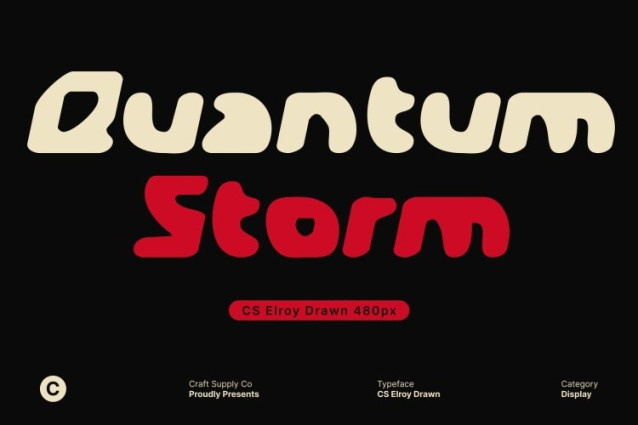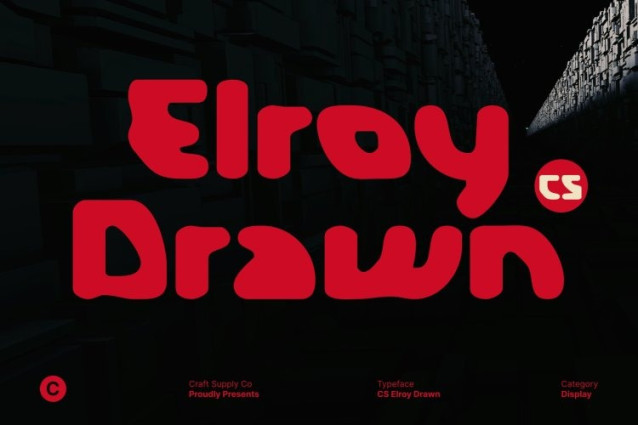
CS Elroy Drawn Font
CS Elroy Drawn Font This is a modern techno display font that fuses bold, futuristic design with expressive hand-drawn texture. Built from sharp angles and clean geometric forms, it delivers a strong high-tech presence, while the drawn detail adds a layer of organic character that keeps the font visually dynamic and distinctive.
Engineered Precision with Artistic Character
Inspired by digital systems, machinery, and cyber aesthetics, each letterform is constructed with confident structure and mechanical clarity. The futuristic geometry communicates speed, intelligence, and innovation, while the subtle drawn imperfections introduce movement and personality creating a unique balance between digital precision and creative expression.
Powerful and Versatile for Tech-Driven Visuals
This font excels in gaming interfaces, technology branding, futuristic posters, electronic product visuals, and digital campaigns. Its bold weight ensures strong readability and impact, making it ideal for headlines and display use where attention and clarity are essential.
Designed for Next-Generation Creatives
Perfect for designers and brands looking ahead, this font speaks the language of the future. It brings boldness, innovation, and an artistic edge to next-gen projects making every design feel advanced, energetic, and unmistakably futuristic.